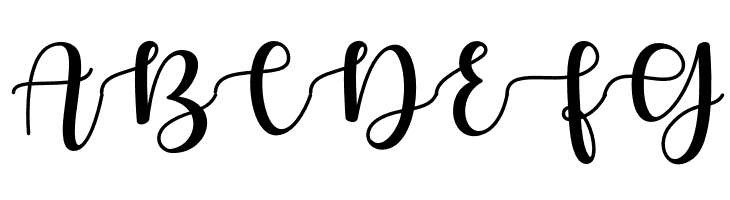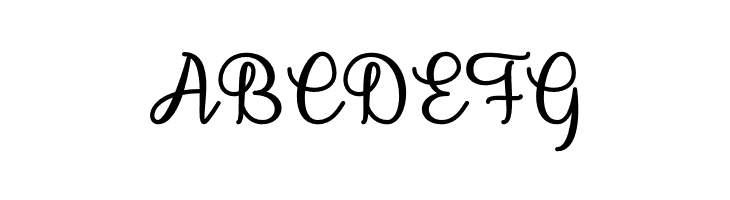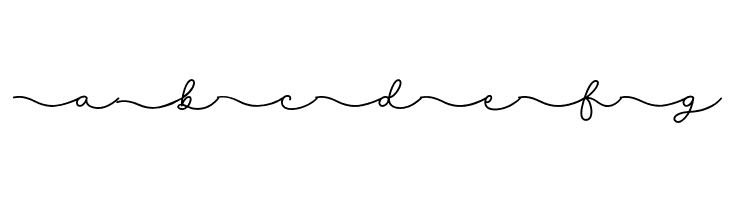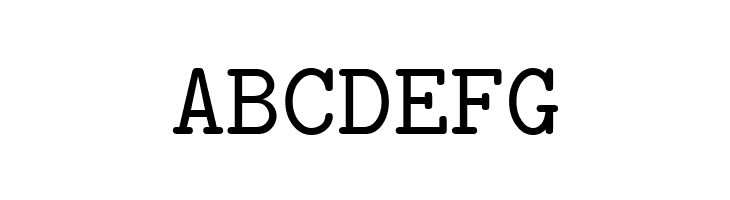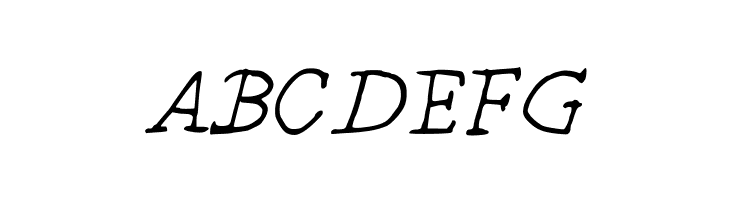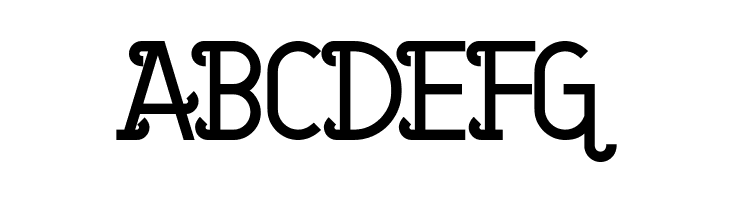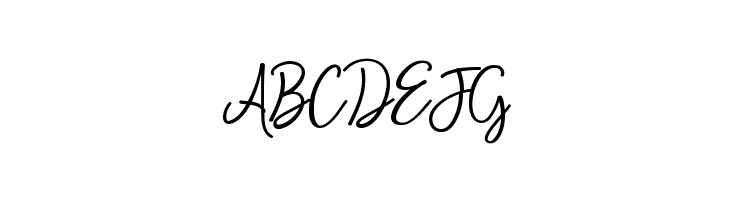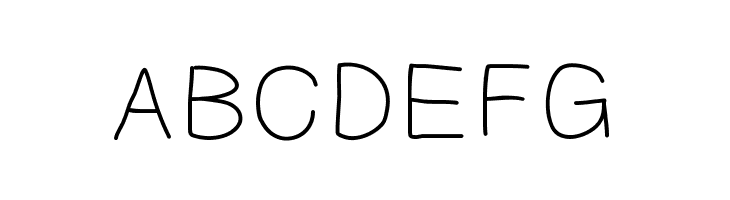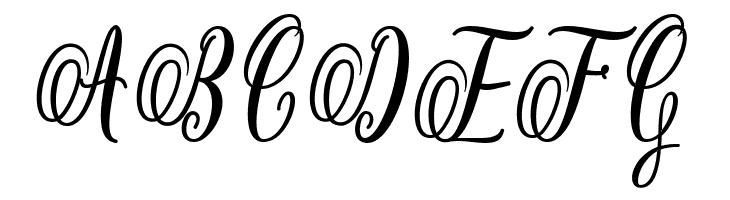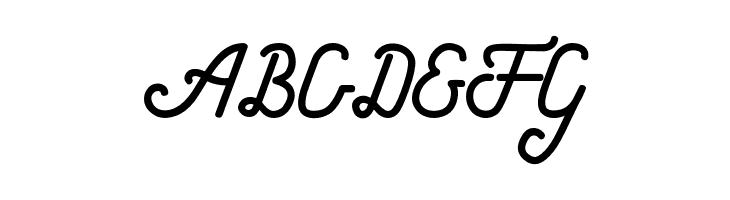
( Docallisme HAS Feat Dutsky - docallisme.blogspot.com )
A bold, playful font with a 3D shadow effect and hand-drawn charm.
( FancyFrenzy - Francy van Lierop )
A medieval-inspired script font with ornate, flowing lines and historical charm.
( Intellecta Design - Paulo W - new.myfonts.com/foundry/Intellecta_Design/?refby=paulow )
A decorative font with intricate flourishes and a historical charm.
( Joe Chau - fontever.com )
A playful, handwritten font with a childlike charm and consistent stroke width.
( JoeeCreative - Joe Creative - creativemarket.com/JoeeCreative )
A charming script font with elegant, flowing curves and a handwritten feel.
( Joz Gandoz - creativemarket.com/jozgandoz )
A playful cursive font with elegant curves and a whimsical charm.
( K-Type - Keith Bates - www.k-type.com/ )
A classic serif font with bold uppercase and harmonious lowercase letters.
( Kelsey Ann G )
A charming, elegant handwritten font with fluid, slightly italicized strokes.
( Kimberly Geswein - kimberlygeswein.com )
A charming and elegant script font with playful loops and swirls.
( MeCreativa - Michela Ferretti - www.mecreativa.com )
A festive dingbat font with charming Christmas-themed illustrations.
( Muhammad Ridha Agusni )
A bold, decorative font with playful serifs and a modern vintage charm.
( Sadi Tekin - behance.net/saditekin )
A playful, handwritten font with thin, irregular strokes and a whimsical charm.
( Sizimon.id - creativemarket.com/sizimon )
A flowing, elegant script font with a handwritten charm.
( Zachary Lucier )
A playful, handwritten font with smooth, rounded edges and casual charm.
( Zansari - Zaffar Ansari - www.zansarifont.com )
A charming and elegant handwritten cursive font with fluid letterforms.
( alifirman - Ali Firman - www.creativefabrica.com/designer/meutuwah/ref/20027/ )
A charming and elegant script font with flowing, cursive letterforms.
( dharmas - Jamaludin Ahmad - creativemarket.com/dharmas?u=dharmas )
An elegant script font with flowing, cursive strokes and high contrast.
( fey design - Fey Design - www.creativemarket.com/feydesign )
A charming script font with smooth, flowing lines and elegant curves.
A whimsical, brush-like font with elegant swirls and a mystical charm.
( ingoFonts - Ingo Zimmermann - www.ingofonts.com )
A classic, elegant serif font with oblique characters and Renaissance charm.
( Androideeapp - websiteandroidee.weebly.com )
A charming handwritten font with fluid, organic strokes and playful elegance.
( Angst )
A playful, hand-drawn font with a whimsical and childlike charm.
( Cioroianu Stefan Cristian )
An elegant, decorative font with ornate swashes and vintage charm.
( Des )
A playful, whimsical handwritten font with charming embellishments.
( Digital Type Foundry - www.digitaltypefoundry.com/ )
An ornate and decorative font with intricate patterns and vintage charm.
( Harried Type - harriedtype.com )
A whimsical, handwritten font with fluid strokes and a casual elegance.
( Katz Fontz - katzfonts.50megs.com/kg.html )
A playful font with each letter paired with a charming bear illustration.
( LeChefRene - members.aol.com/lcrfonts/ )
A playful, cat-themed handwritten font with whimsical charm.
( LeChefRene - members.aol.com/lcrfonts/ )
A playful font with bold, tilted letters and charming illustrations.
( London's Letters - www.londonsletters.com/ )
A playful, bold font with cartoon piglet illustrations, perfect for fun and creative projects.
( London's Letters - www.londonsletters.com/ )
A whimsical dingbat font featuring charming pony illustrations in various playful poses.
( London's Letters - www.londonsletters.com/ )
A playful font with bold letters and charming animal illustrations.
( London's Letters - www.londonsletters.com/ )
A bold, modern font with integrated yin-yang symbols for a unique, thematic style.
( Misti's Fonts - mistifonts.com/ )
A charming, flowing script font with elegant cursive letters and playful lowercase swashes.
( Misti's Fonts - mistifonts.com/ )
A charming calligraphic font with flowing, interconnected letterforms.